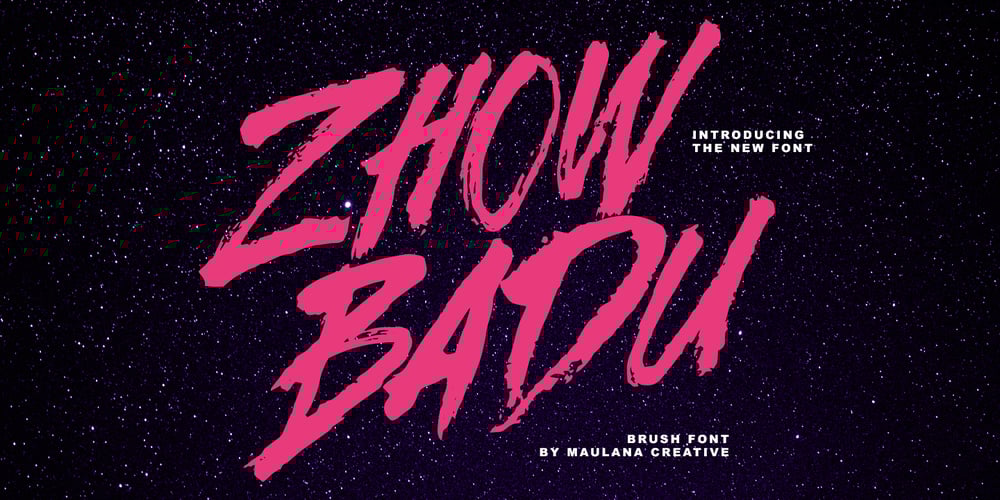
MC Zhow Badu
MC Zhow Badu font
MC Zhow Badu Font Family was designed by Gilang Maulana and published by Maulana Creative. MC Zhow Badu contains 1 styles and family package options. Give your designs an authentic handcrafted feel. “Zhow Badu Handmade Brush Font” is perfectly suited to signature, stationery, logo, typography quotes, magazine or book cover, website header, clothing, branding, packaging design and more.Thanks for use this font,Maulana Creative